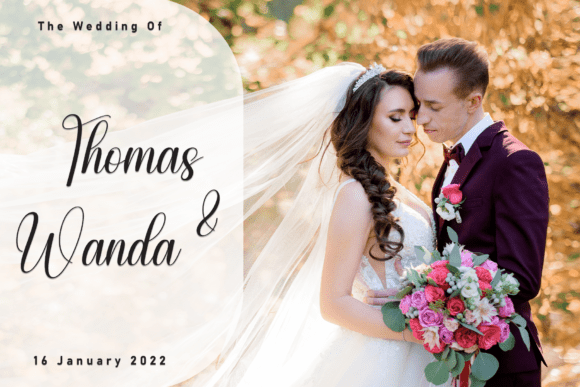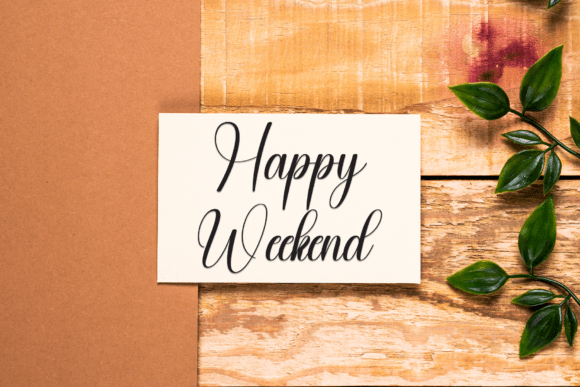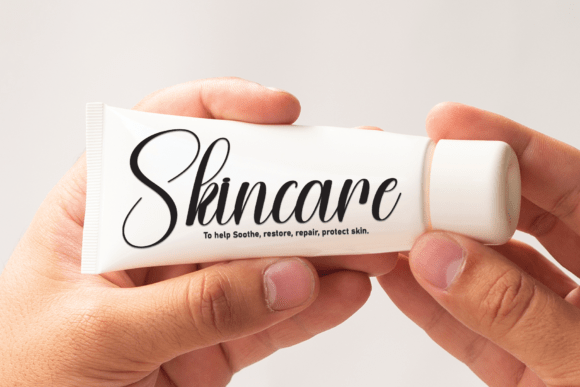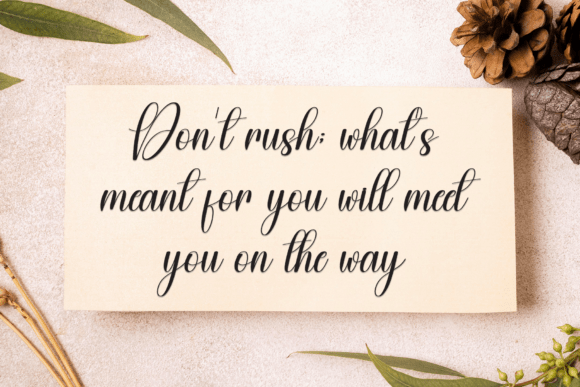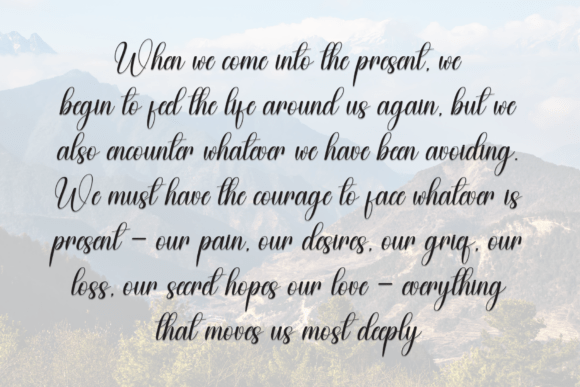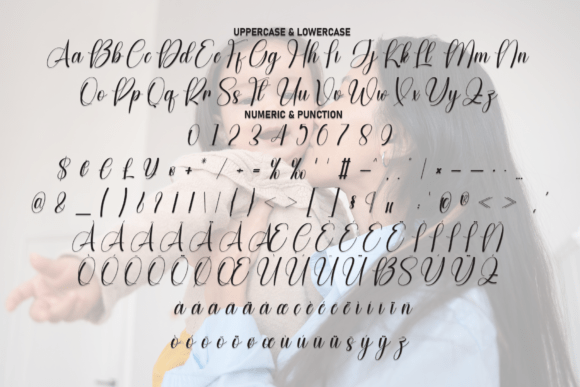
Introduction to Momy Font
Presenting a captivating handcrafted typeface radiating both tenderness and charisma.
It’s a delightful fusion of benevolence and cordiality masterfully woven into the fabric of typography The dynamic and playful nature of this font shines beautifully in wedding invitations, offering a distinctive touch seeping with lovely romance.